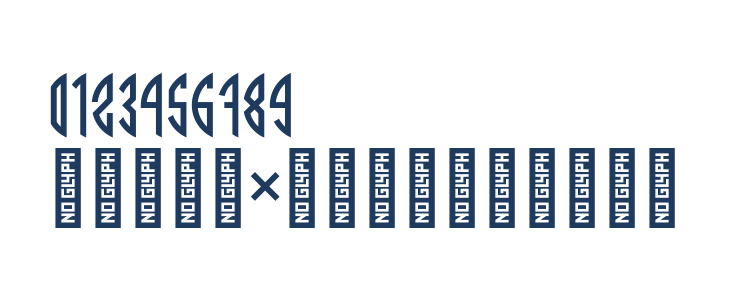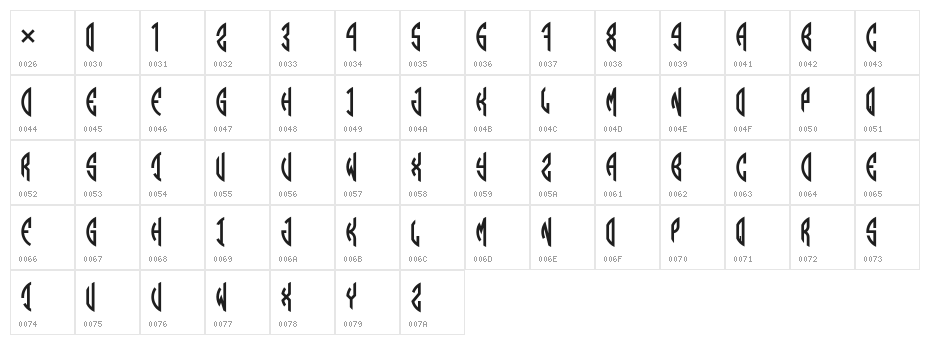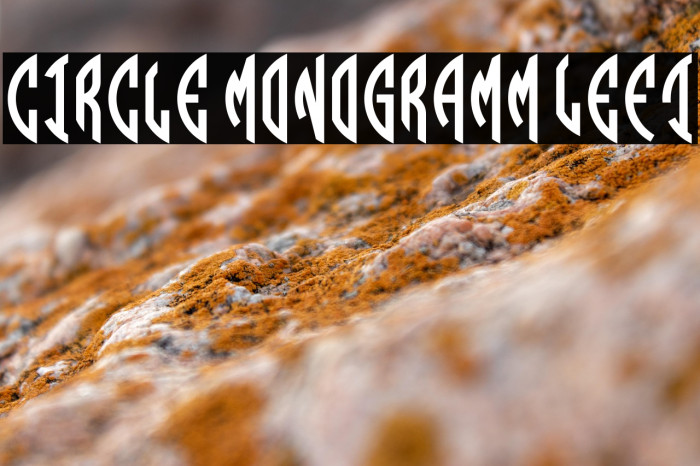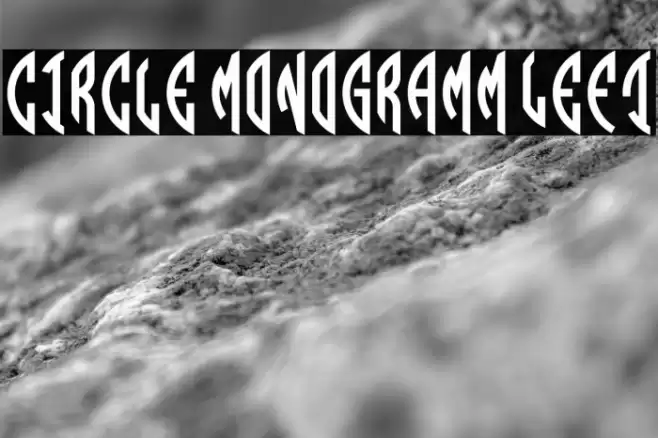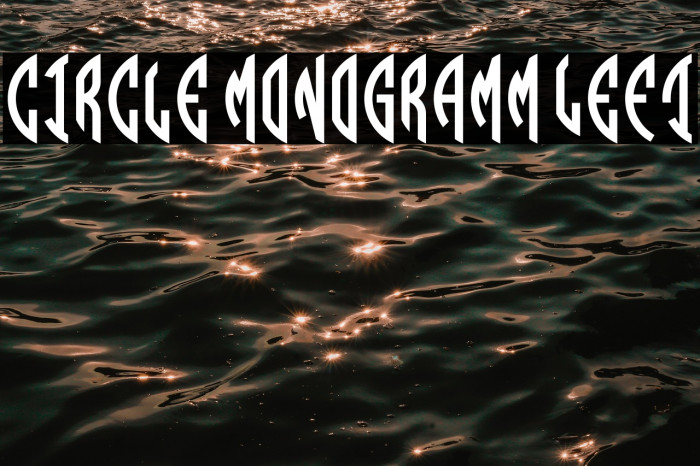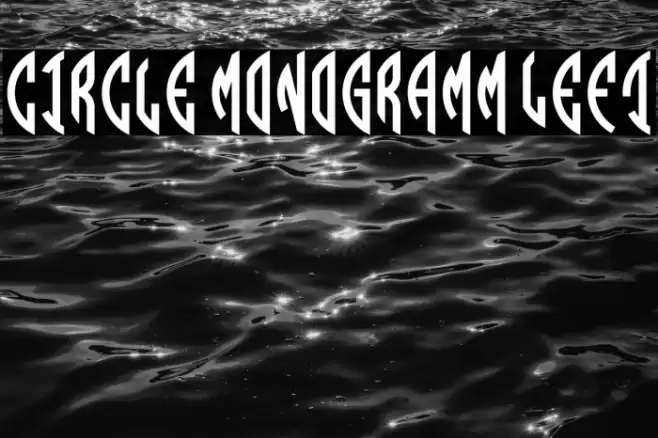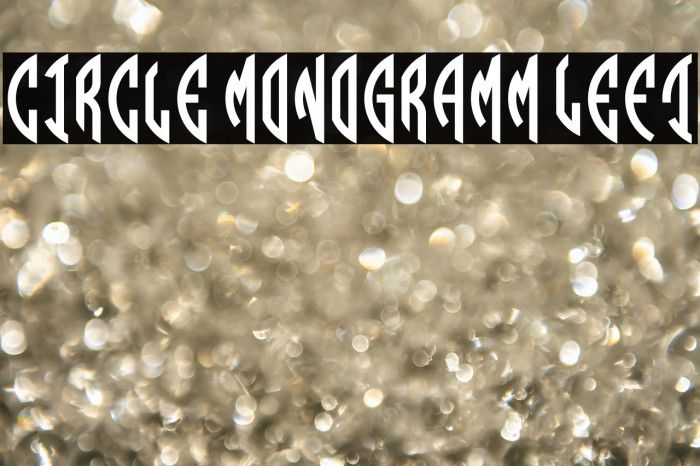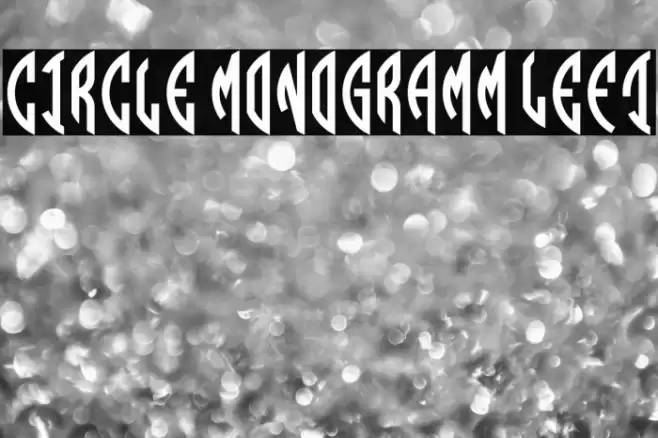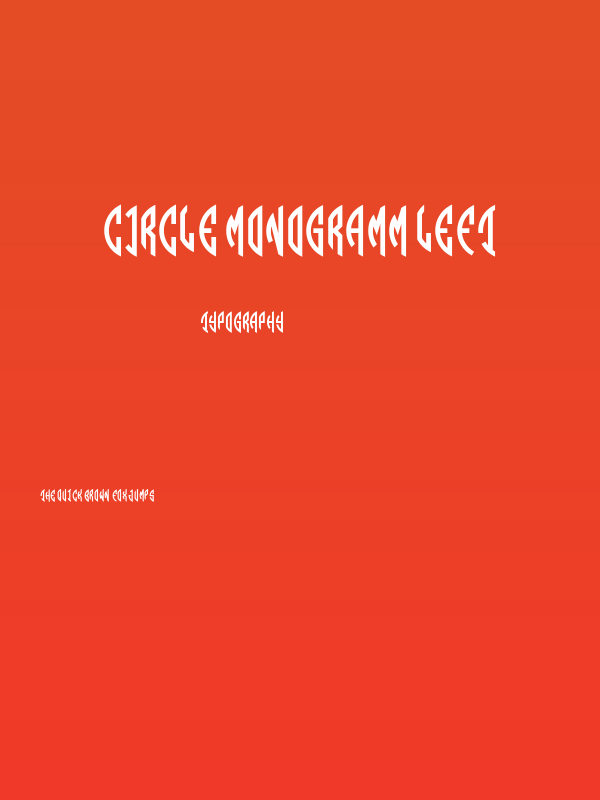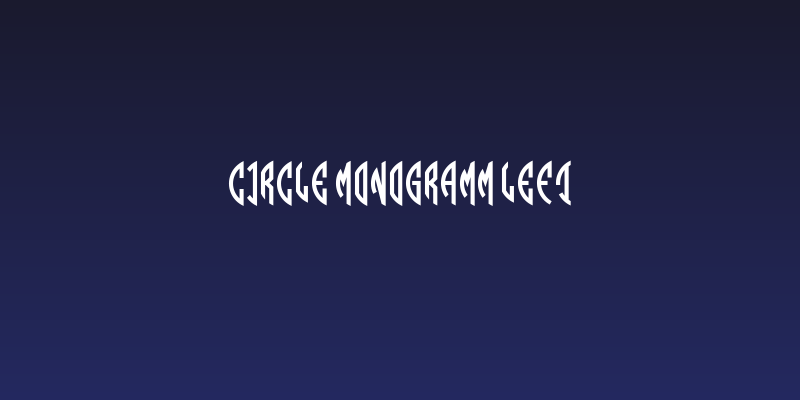
Circle Monogramm Left Font
Circle Monogramm Left Description
This font features a bold, geometric design with sharp angles and a distinct, monogram-like appearance. Each character is crafted with a unique style that combines both modern and traditional elements, creating a striking visual impact. The uppercase letters are particularly prominent, with a uniform height and consistent stroke width that emphasizes their boldness. The numbers follow a similar design, maintaining the geometric and angular theme. This font is ideal for projects that require a strong, eye-catching typeface with a touch of elegance and sophistication.